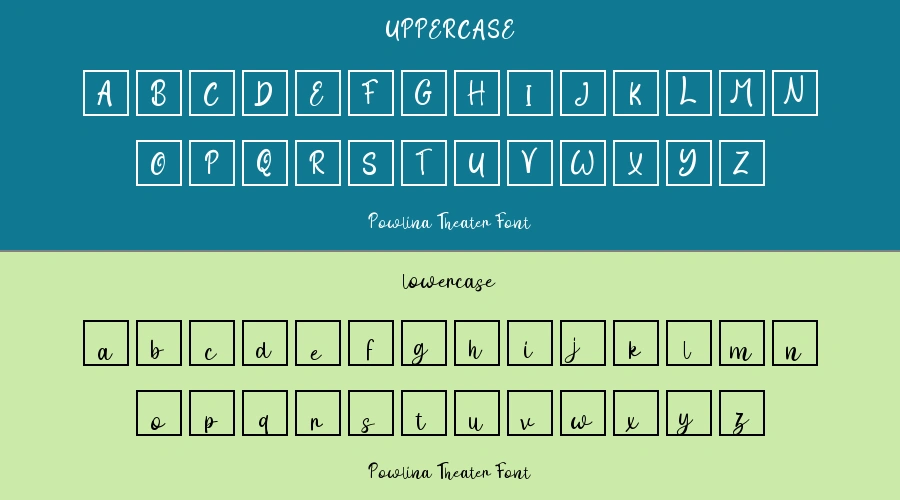
About Powlina Theater Font
When typographic excellence matters most, Powlina Theater Font delivers through its thoughtful blend of organic forms and technical precision. Specially crafted for government publications, it offers the durability and user trust required for sophisticated design work. Every detail serves a purpose.
The character set showcases thoughtful details like monoline strokes alongside functional proportional figures. This proves especially valuable in heritage publications, where texture integration directly influences results. Particular attention was paid to counter size and contemporary relevance during development.